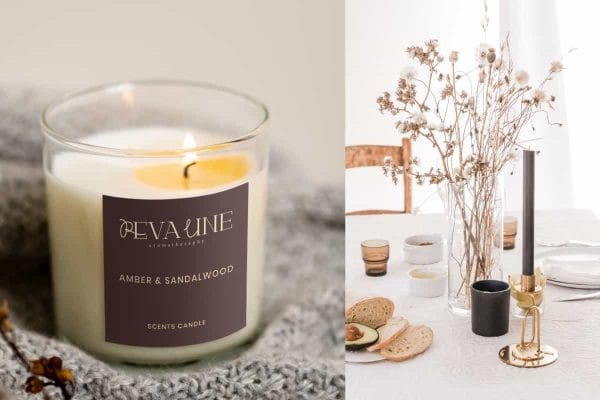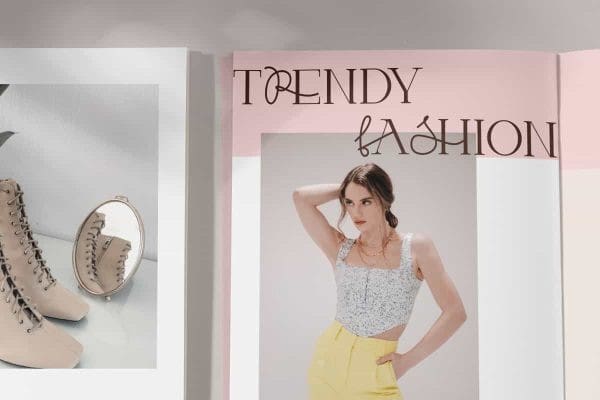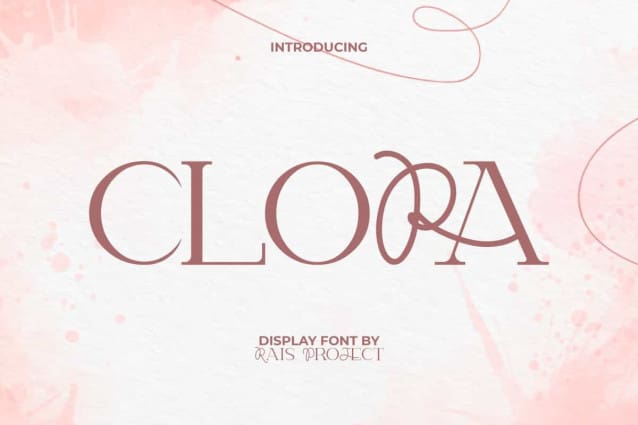
Clora Font
Clora Font is an elegant luxurious unique serif display font with stunning combination style. This font has a minimalist character with two different types of fonts, it’s Script and Serif. It will be good for any designs, such as brand image, cover, custom design, flyer, invitation, label, marketing material, menu, poster, product packaging, quote, signage, stationery, website page, and more!
Clora Font including a complete set of basic Uppercase and Lowercase characters with different appearances between the two, Numerals, and large range of Punctuation. This font also contain Ligature characters and will be suitable for various industries, such as accessories, advertising, beauty product, cafe, crafting, event or wedding organizer, fashion, furniture, marketing, movie, printing, publishing, real estate, restaurant, spa salon, etc.